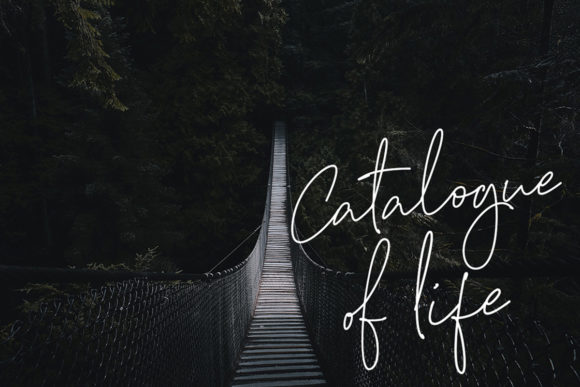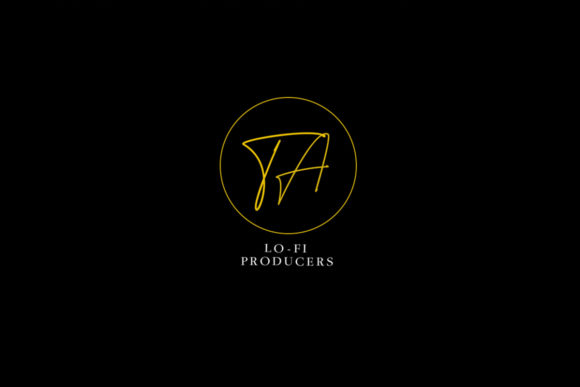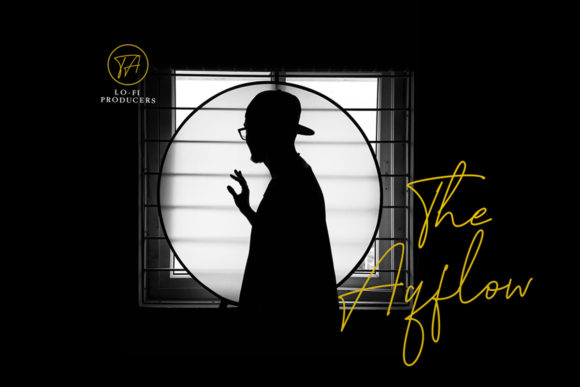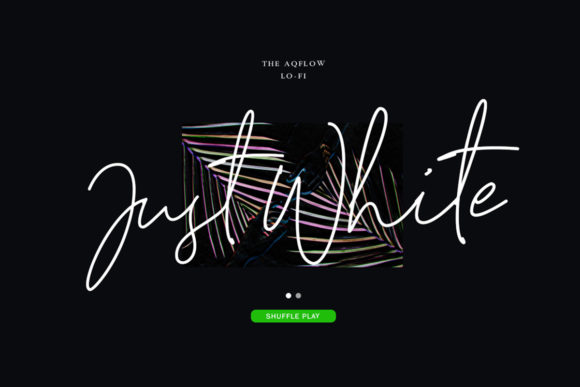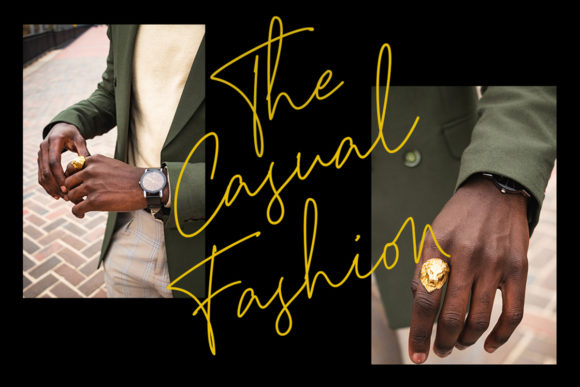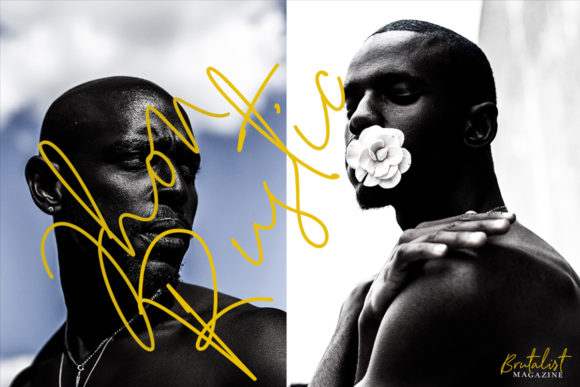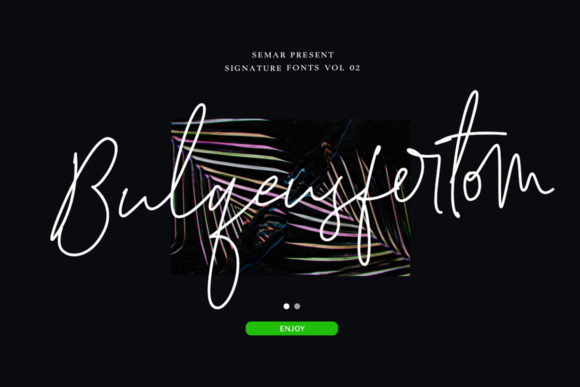
Bulqeusfertom Font: Elevate Your Designs with Elegance and Confidence
Bulqeusfertom is an elegant signature font that exudes confidence and courage. Its unique design makes it perfectly suited for a wide variety of projects, from creative crafts to professional branding. In this article, we’ll dive into the world of Bulqeusfertom, exploring its features, uses, and benefits for designers and crafters alike.
The Essence of Bulqeusfertom
Bulqeusfertom is more than just a font – it’s a statement piece. Its elegant design is infused with a sense of confidence and courage, making it ideal for projects that require a touch of sophistication. Whether you’re working on a logo, invitation, or social media graphic, Bulqeusfertom is sure to make a lasting impression.
Key Features of Bulqeusfertom
- Elegant Signature Style: Bulqeusfertom boasts a beautiful, flowing script that adds a touch of elegance to any design.
- Confidence and Courage: The font’s bold and adventurous spirit makes it perfect for projects that require a sense of fearlessness.
- Versatility: Bulqeusfertom is suitable for a wide range of projects, from creative crafts to professional branding.
- Unique Design: The font’s distinctive style sets it apart from other signature fonts, making it a great choice for designers looking to stand out.
Uses for Bulqeusfertom
Bulqeusfertom’s versatility makes it an excellent choice for various design projects. Here are some ideas to get you started:
- Logos and Branding: Use Bulqeusfertom to create a bold and memorable logo that reflects your brand’s personality.
- Invitations and Stationery: Add a touch of elegance to your invitations, greeting cards, and stationery with Bulqeusfertom’s beautiful script.
- Social Media Graphics: Make your social media graphics stand out with Bulqeusfertom’s unique and eye-catching design.
- Crafting and DIY Projects: Use Bulqeusfertom to add a personal touch to your crafting and DIY projects, such as handmade cards, gift tags, and scrapbooking.
Bulqeusfertom offers numerous benefits for designers and crafters, including:
- Time-Saving: With Bulqeusfertom, you can create professional-looking designs in no time, thanks to its easy-to-use and versatile design.
- Increased Creativity: The font’s unique style and elegance can inspire your creativity and help you think outside the box.
- Consistency: Use Bulqeusfertom across multiple projects to establish a consistent visual brand identity.
- Professional Results: Achieve professional-looking results with Bulqeusfertom’s high-quality design and precise typography.
Tips for Using Bulqeusfertom
To get the most out of Bulqeusfertom, follow these tips:
- Experiment with Sizes and Colors: Play around with different sizes and colors to find the perfect combination for your design.
- Pair with Complementary Fonts: Combine Bulqeusfertom with complementary fonts to create a visually appealing and harmonious design.
- Use on High-Quality Backgrounds: Ensure your design looks its best by using Bulqeusfertom on high-quality backgrounds.
Bulqeusfertom is an exceptional font that can elevate your designs with elegance and confidence. Its versatility, unique design, and ease of use make it an excellent choice for designers and crafters alike. Whether you’re working on a professional project or a creative craft, Bulqeusfertom is sure to make a lasting impression. Try it out today and discover the power of elegant typography!